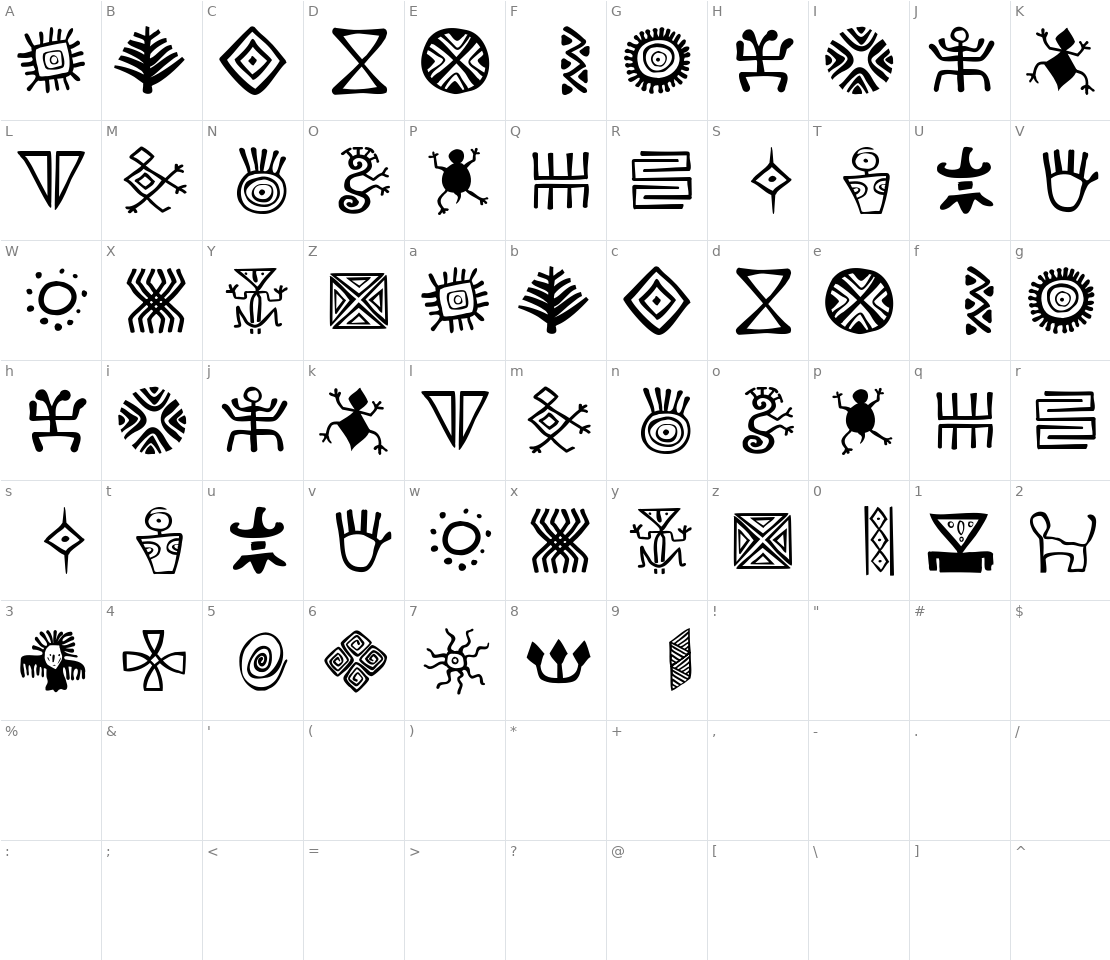
Bacatá
by William Escobar
Bacatá is an ornamental symbol font by William Escobar featuring geometric shapes and figures inspired by indigenous petroglyphs and tribal art. The glyphs feel rooted in pre-Columbian visual culture, with angular, primitive forms that read as both ancient and strikingly graphic. Useful for borders, decorative accents, cultural projects, or anywhere you need symbolic motifs that carry real historical weight.